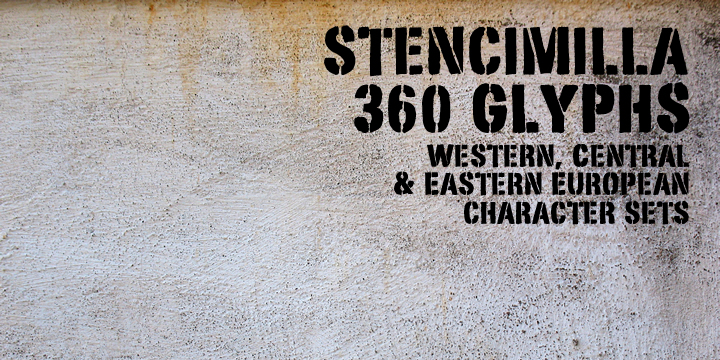
Stencimilla Font
Stencimilla
Stencimilla is a typeface created by Bartek Nowac and published by GRIN3(Nowak). This font has two different sets of capital letters – no lawercase. Also, you have language support.